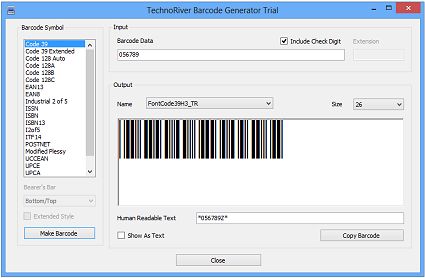
TechnoRiver Barcode Font is a comprehensive font package consisting of TrueType fonts used on MS Office and desktop applications, Postscript fonts for digital typesetting, and Web fonts (WOFF) for dynamic HTML applications. The font has been carefullly designed to meet industry specifications and are calibrated to ensure maximum scannability and readability.
TechnoRiver Barcode Font is fully Unicode Compliant, capable of manipulating text as unicode rather than single byte characters. The barcode font package includes a Generator for direct barcode production and printing, helping first time users to create barcodes with ease.
Supported symbologies include Code 39 , Code39 ASCII, UPCA, UPCE, EAN8, EAN13 , Extension 2, Extension 5, Code 128A, Code128B, Code128C, Code128 Auto, I2of5, ITF14, Modified Plessy , UCCEAN (GS1-128) and Industrial 2 of 5 barcodes.